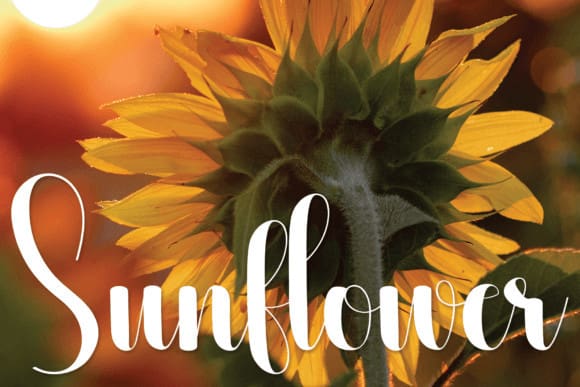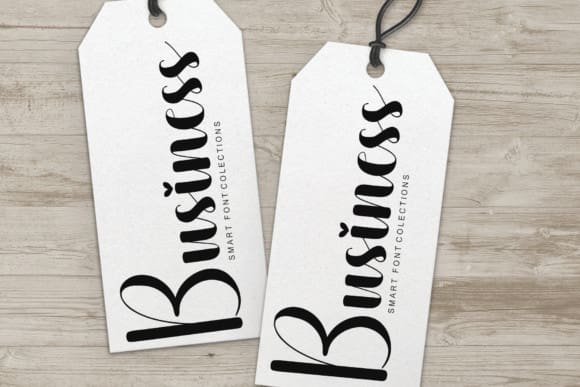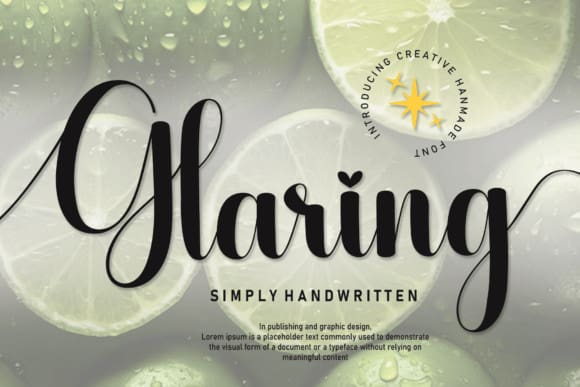
Glaring Script Font
Glaring Script Font: This elegantly handwritten font is perfect for wall displays, wedding invitations, social media post logos, advertisements, product packaging, product designs, labels, photography, watermarks, invitations, stationery, and any project that requires a personalized touch.